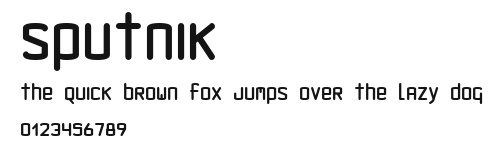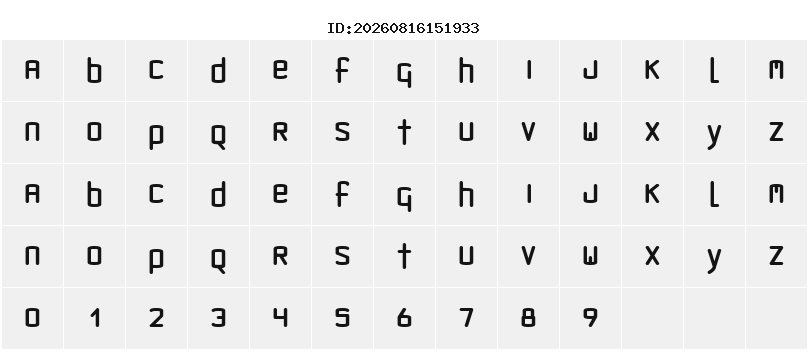
Sputnik Preview
• Font Name: Sputnik
• Full Font Name: Sputnik
About Sputnik.ttf
Sputnik.ttf is a modern, elegant sans-serif font designed for ultimate readability and visual harmony. Perfect for branding, headlines, web design, and print materials.